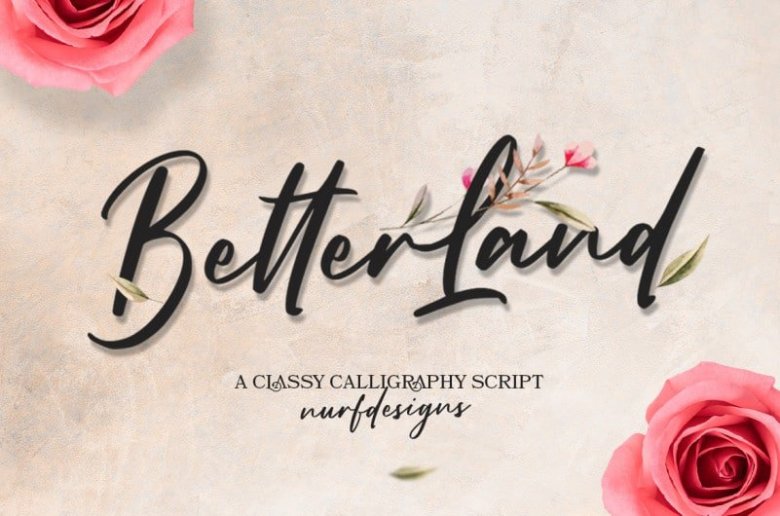
Better Land Script Font
Better Land Font, a work that is purely classy handwritten script font, has natural characteristics. It’s perfect for invitations, signatures, blogs, social media, business cards, product brands.
Better Land is a simple font that has Stylistic standards, Stylistic Alternatives. and includes uppercase and lowercase letters, numbers and punctuation.